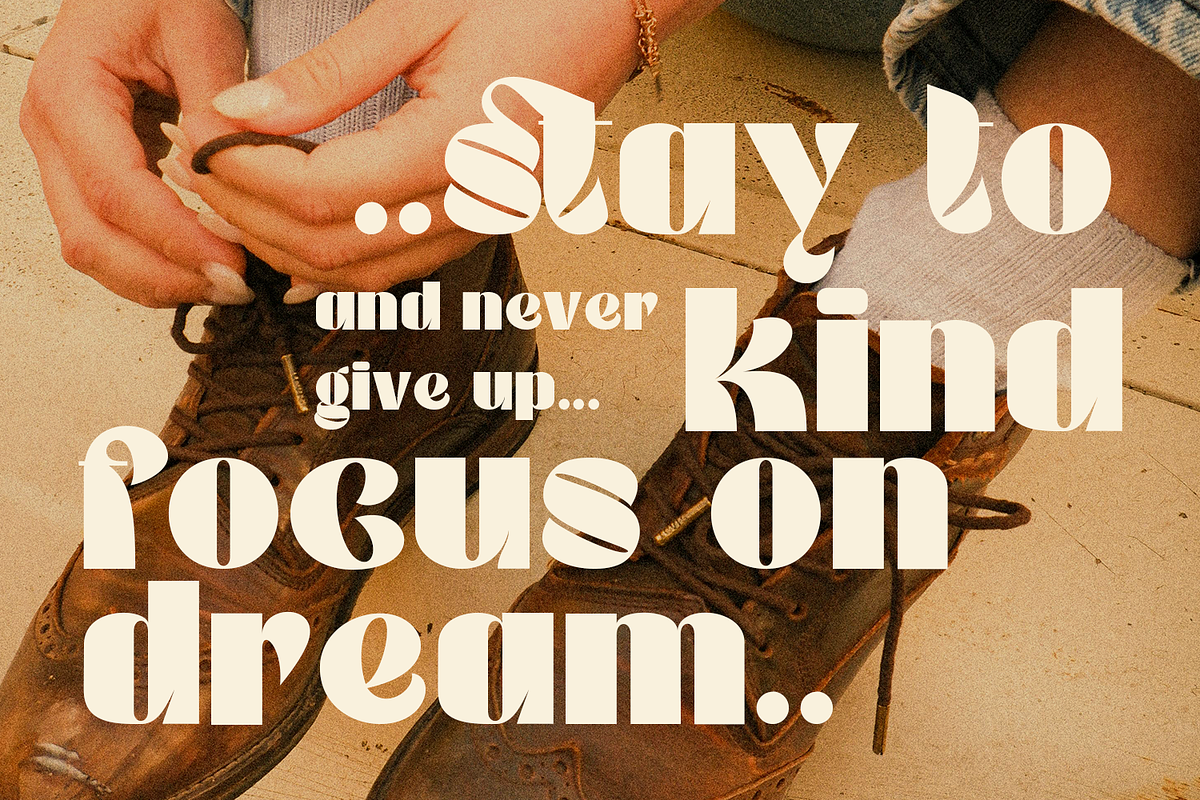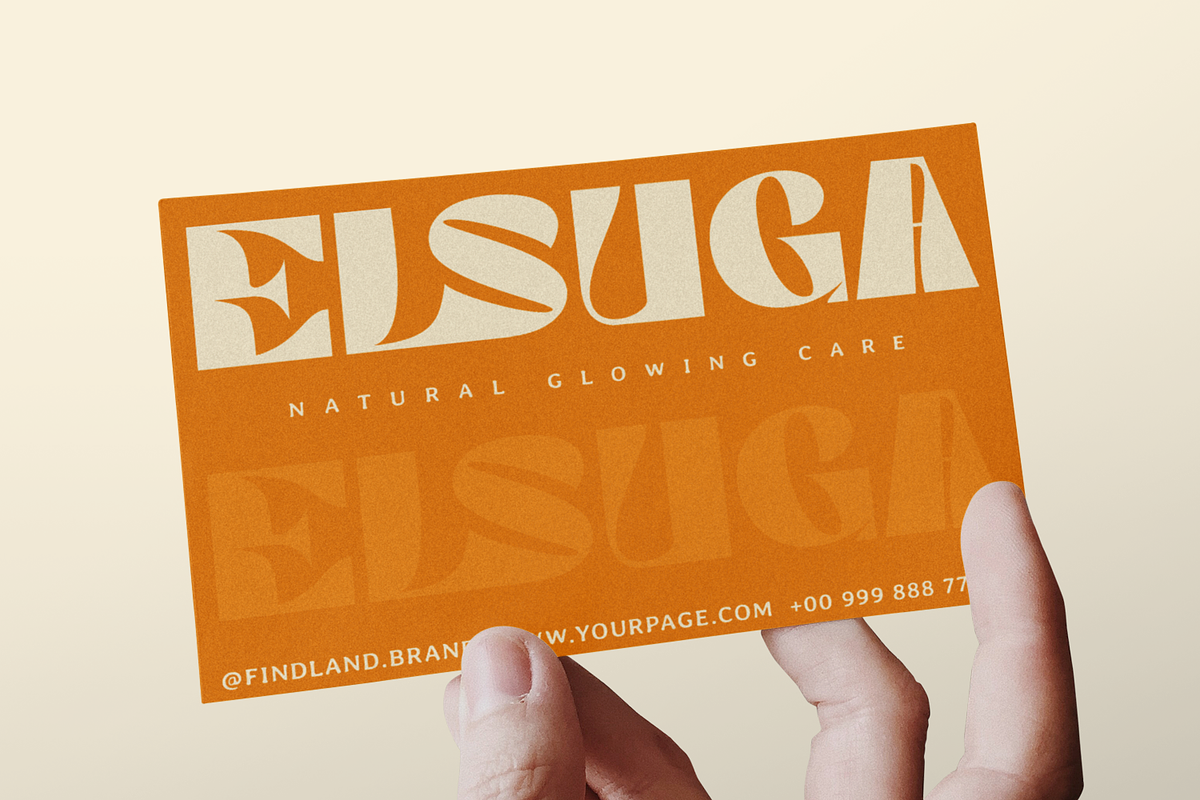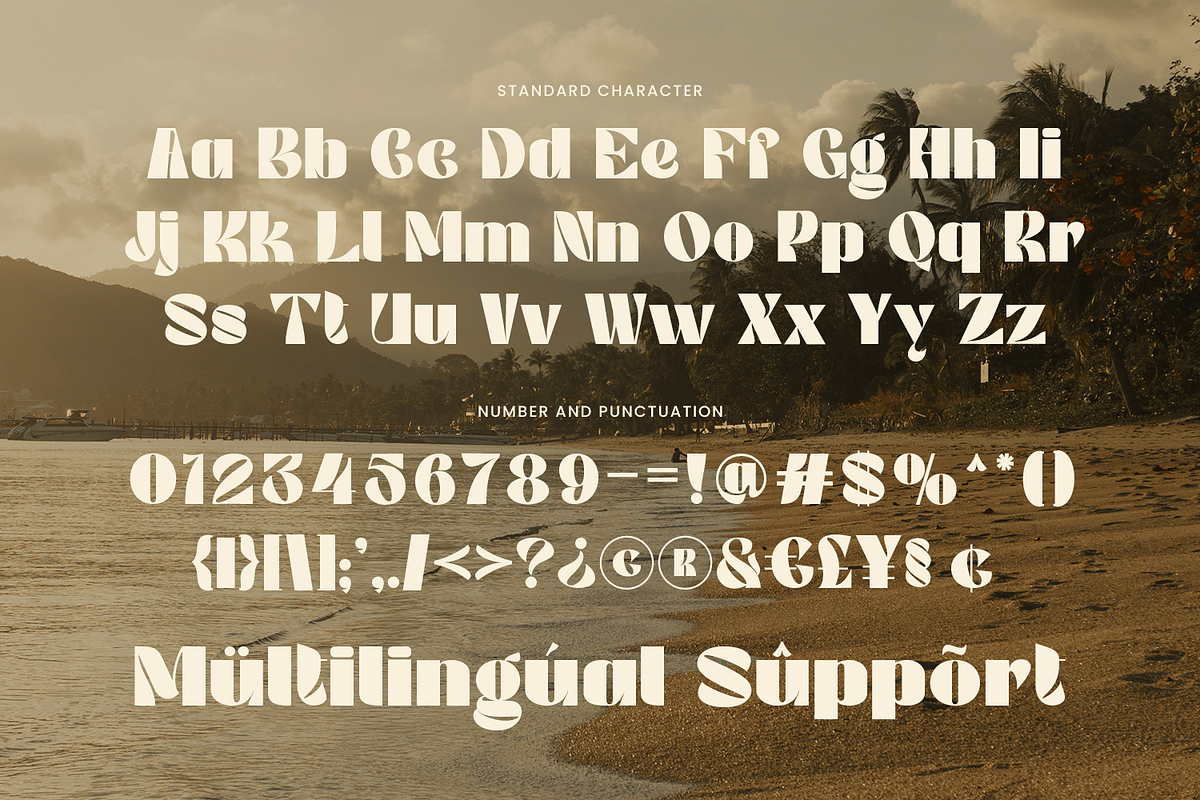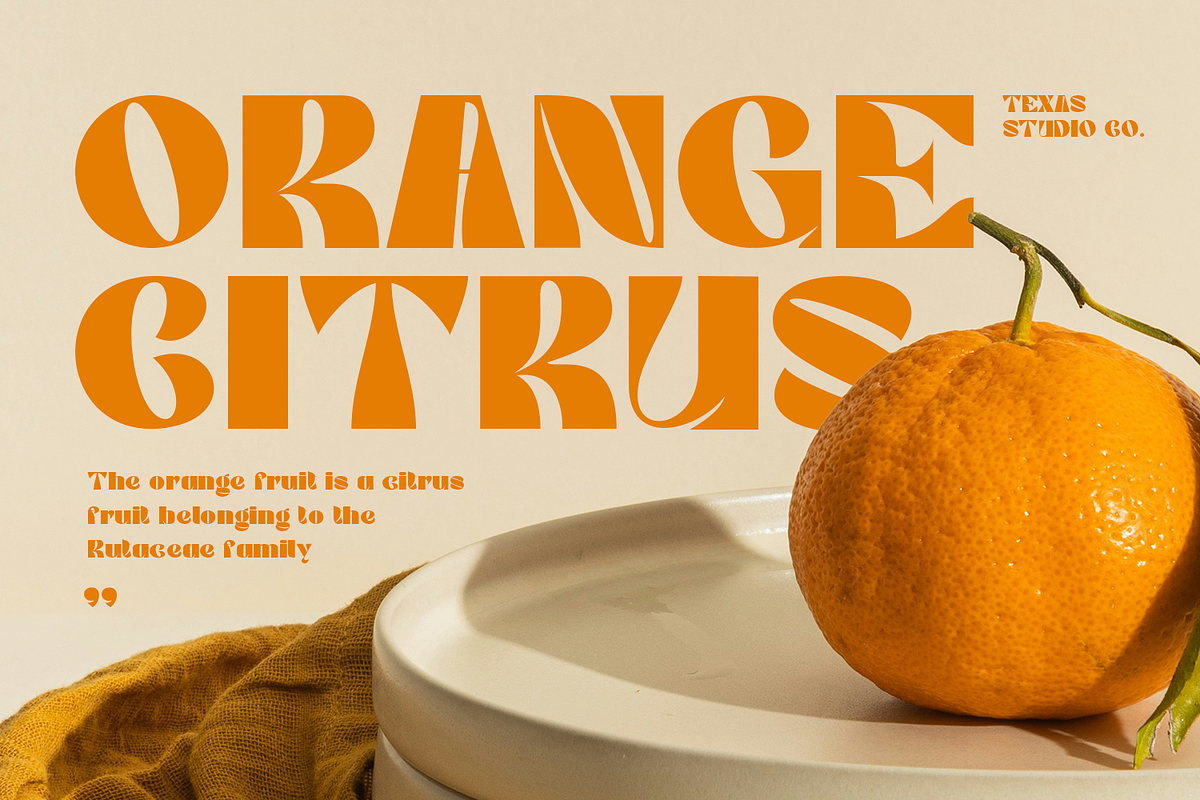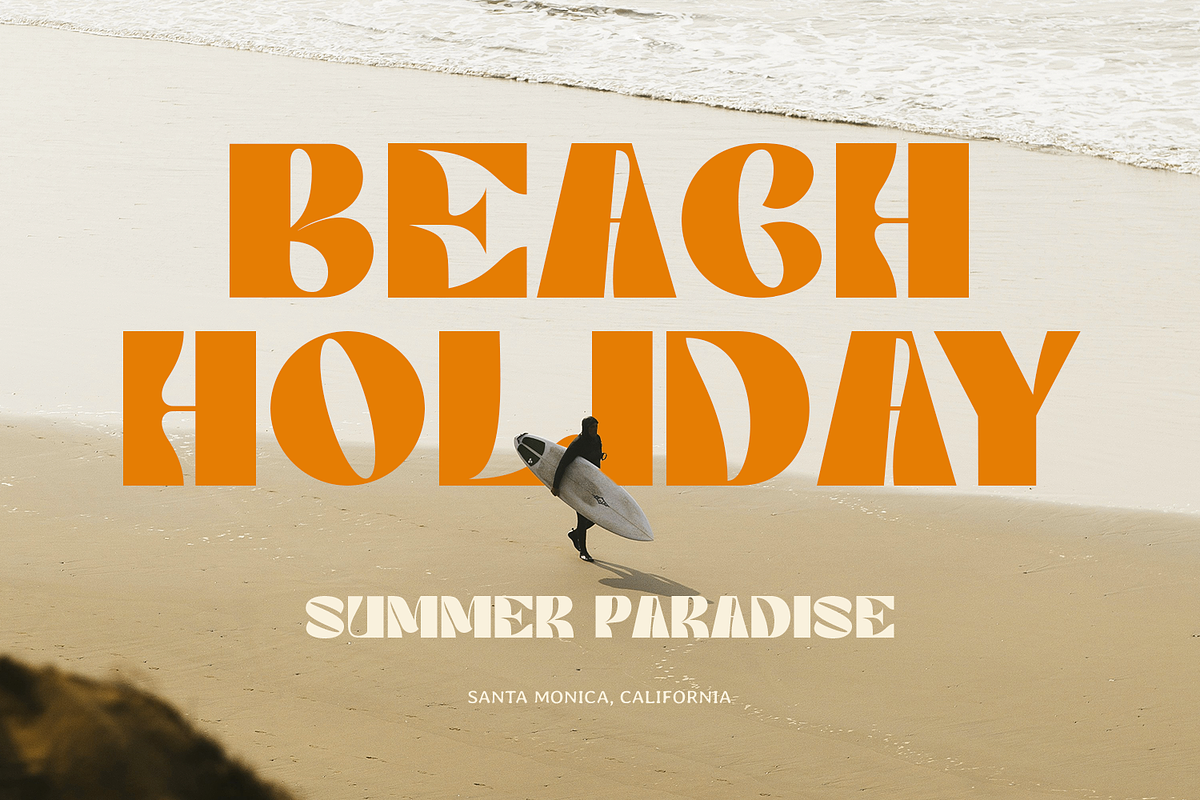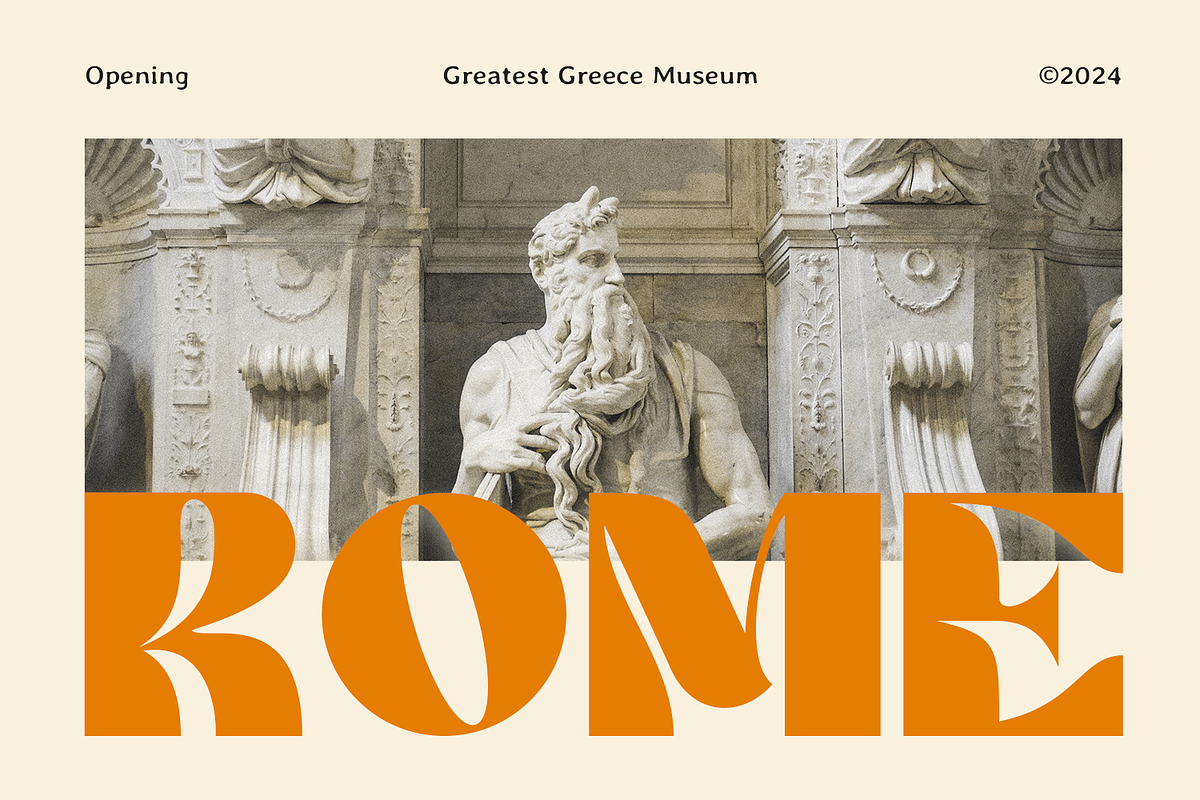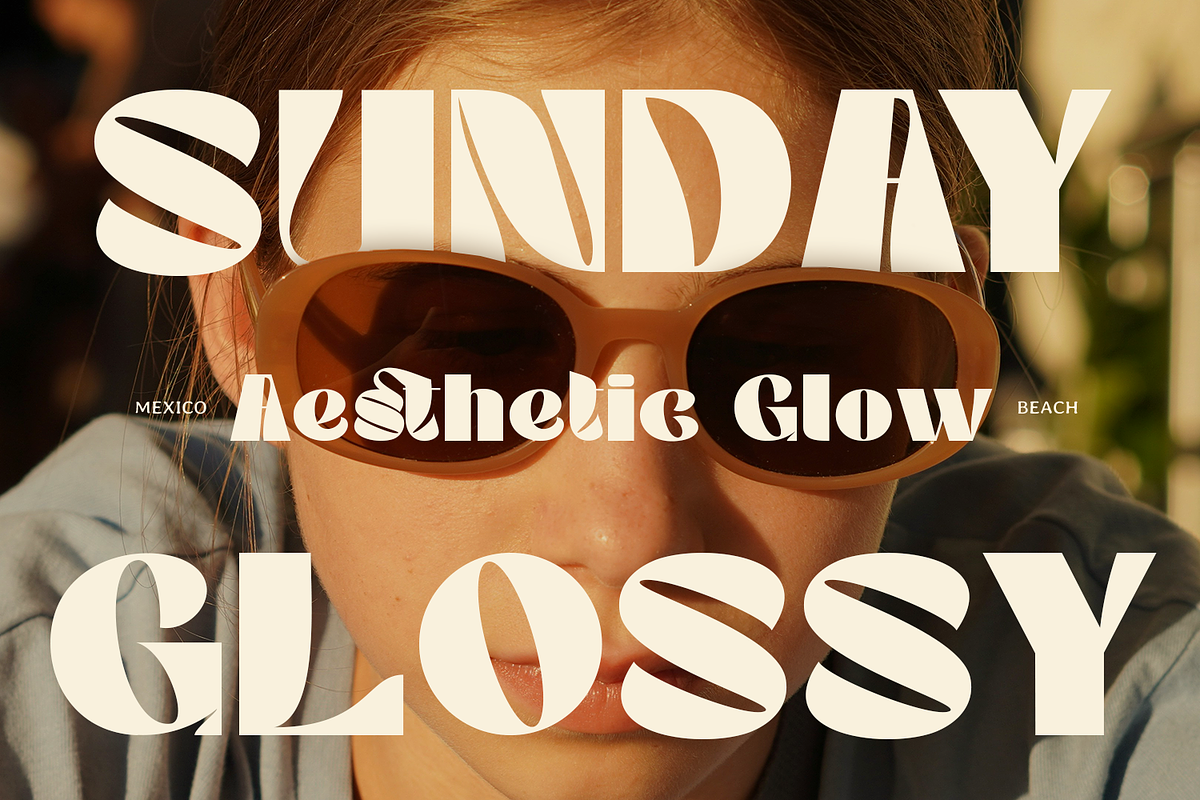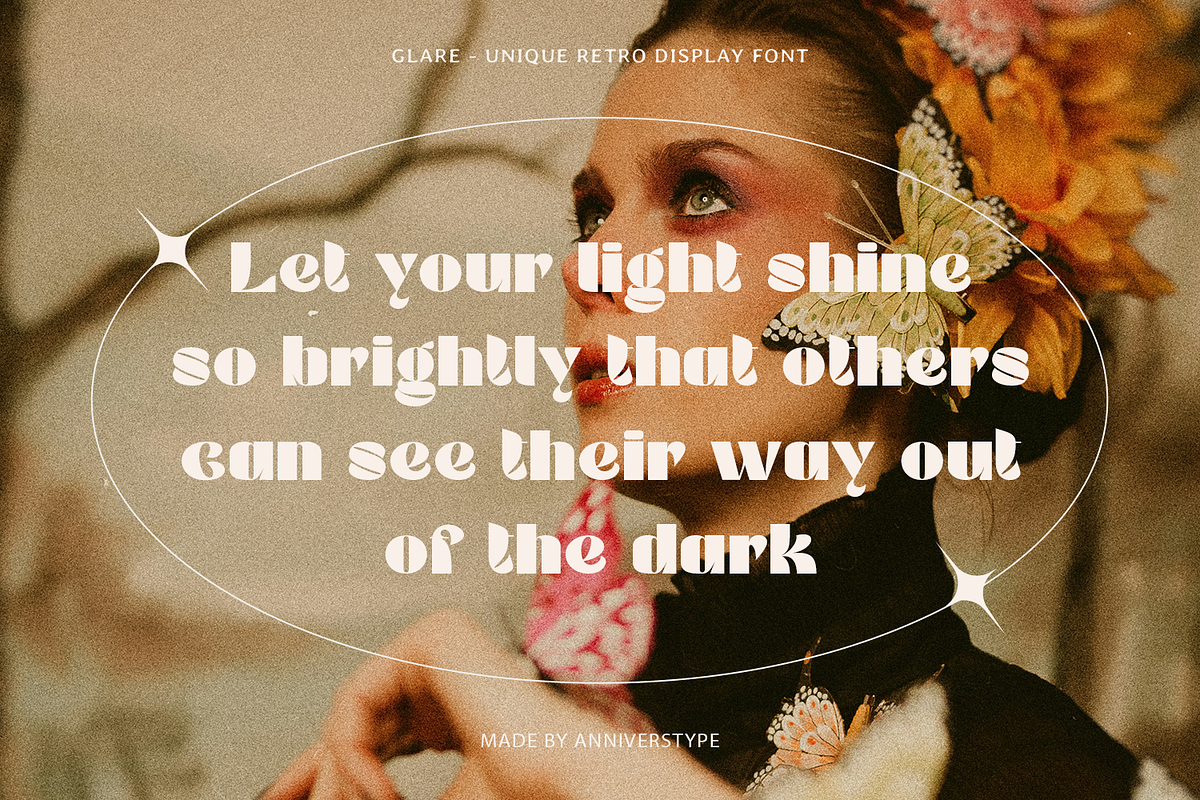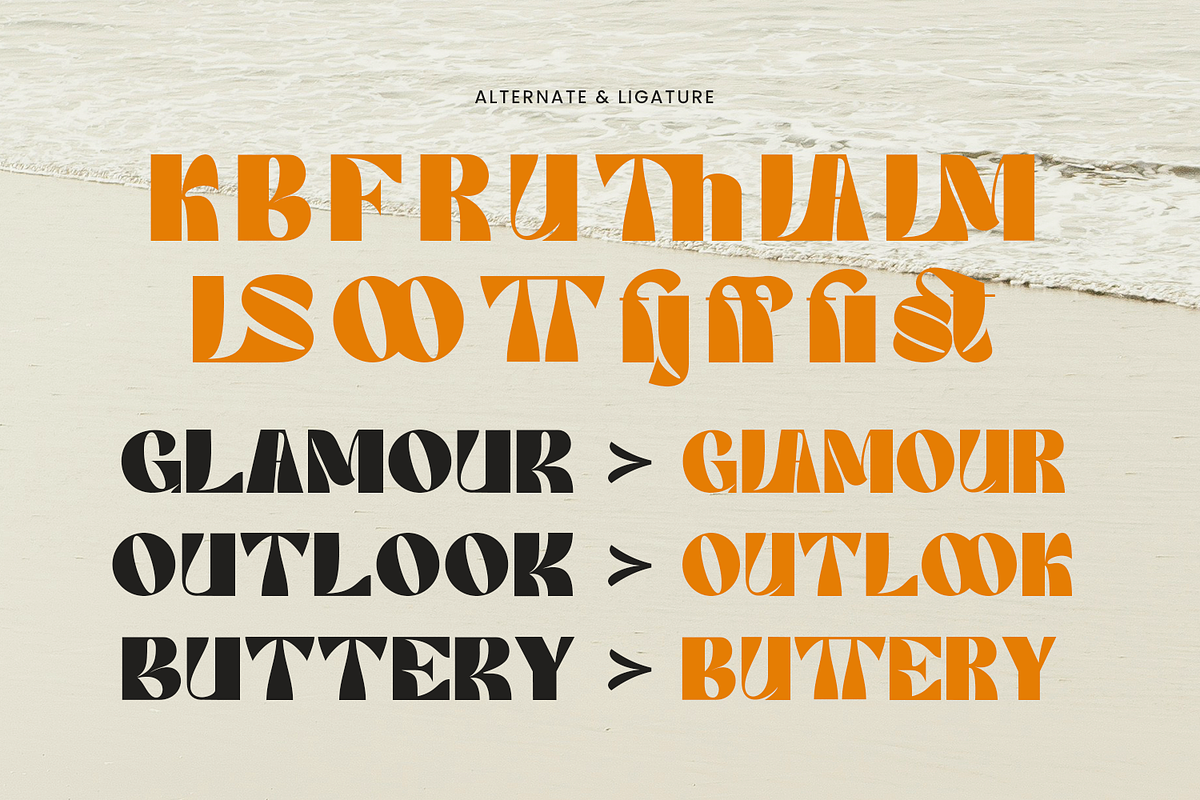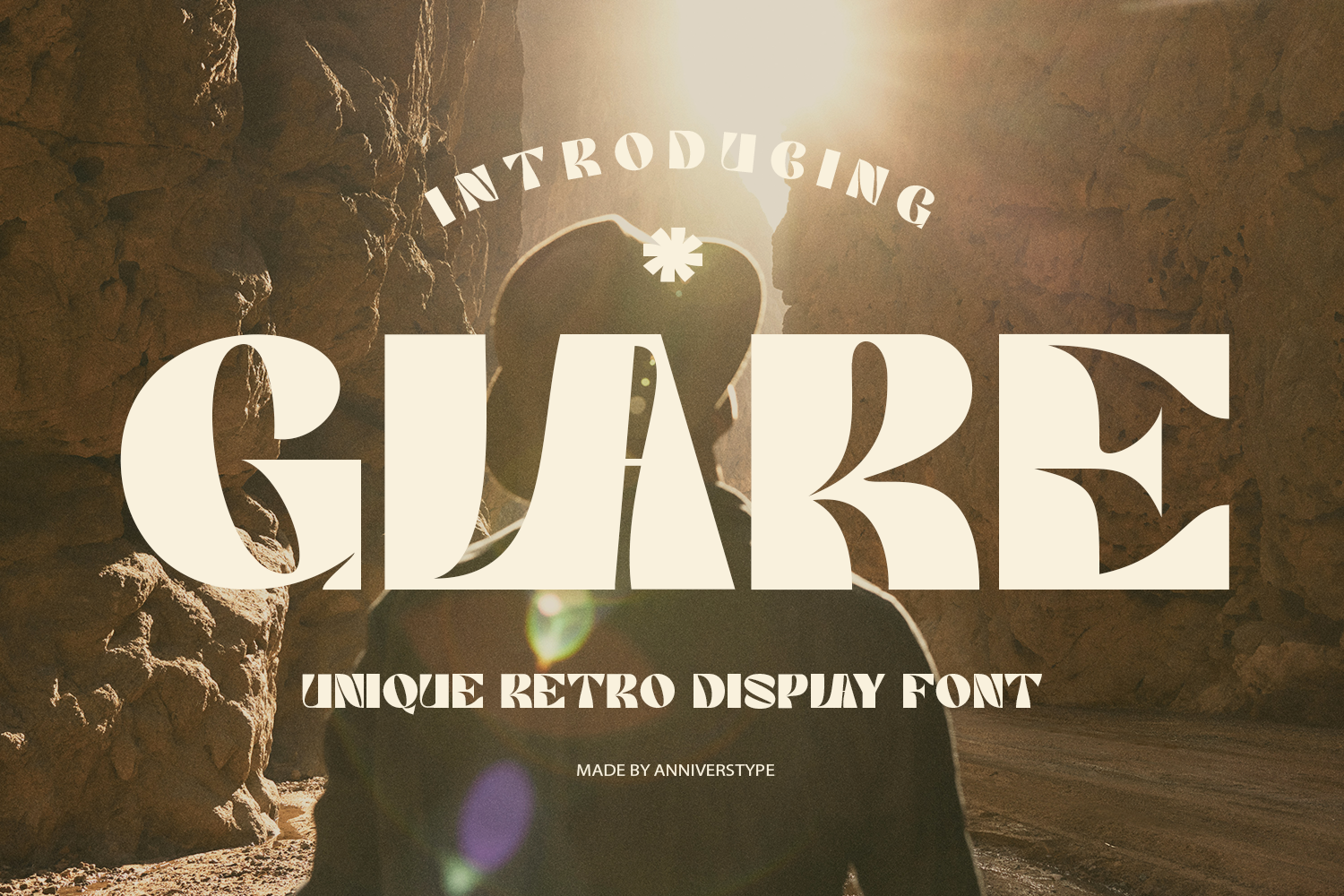
Glare - Retro Display Typeface
Glare brings vibrant retro flair with a modern edge to your designs. Crafted with meticulous detail and bold characters, this retro display font is ideal for projects that call for a nostalgic yet daring touch. Perfect for logos, holiday cards, wedding invitations, quotes, advertisements, and more."
- uppercase, lowercase, letters, numerals and punctuation
- OpenType features (ligatures, alternates, and more)